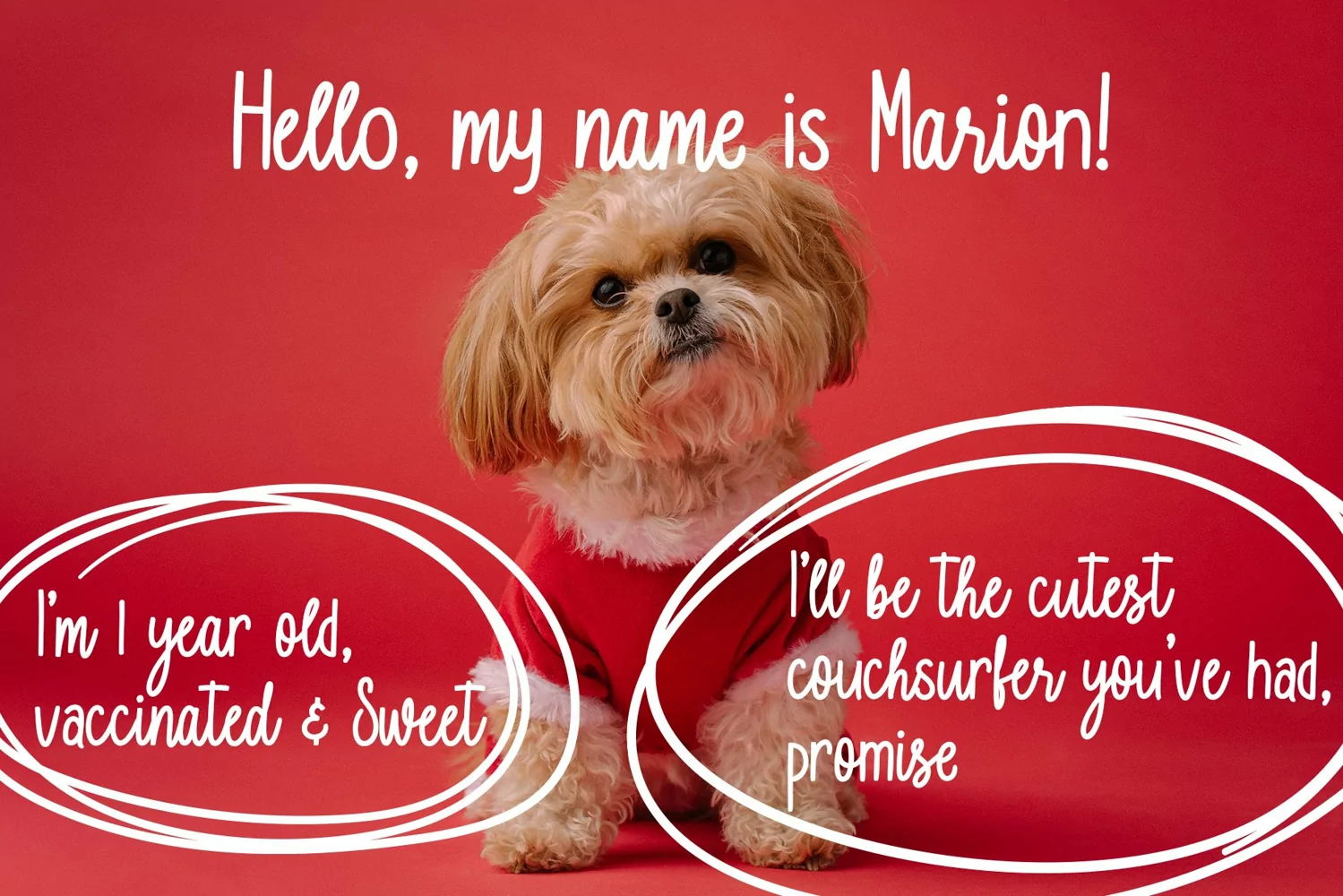
Daisy's Note - A Fun Handwritten Font, with curves and lines are so soft that makes this font look pretty and realistic.
With 273 Charachters, Daisy's Note is perfect to all your design project, like invitation card, product logo, food brand logo and much more.
Daisy's Note also supported with extra character that included in : Stylistic Alternate, Stylistic Set 01 - 03
that will help you get beautiful style with your own creation.